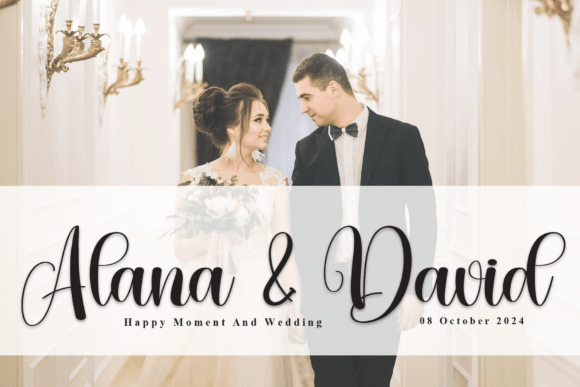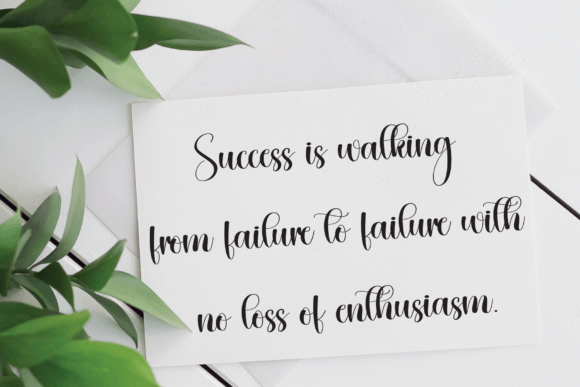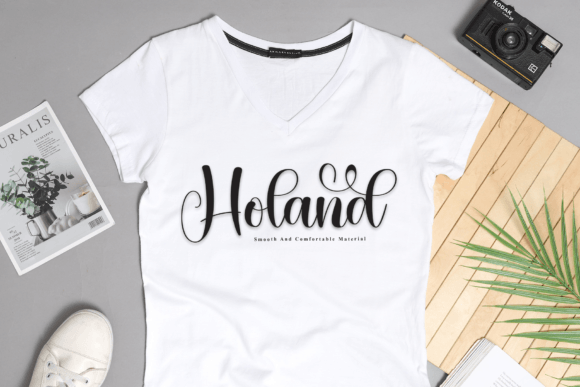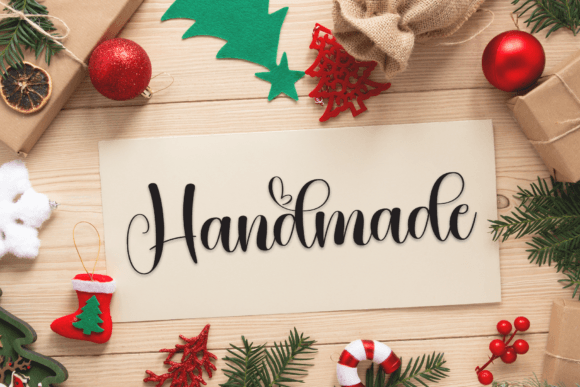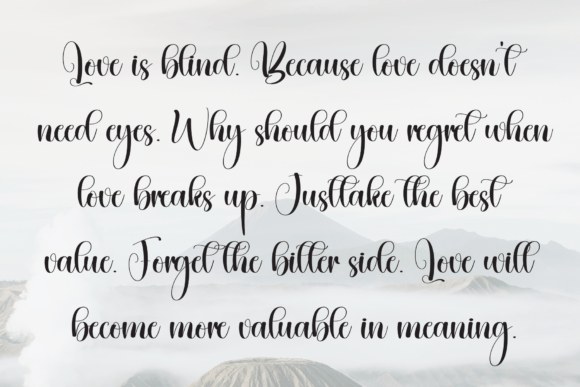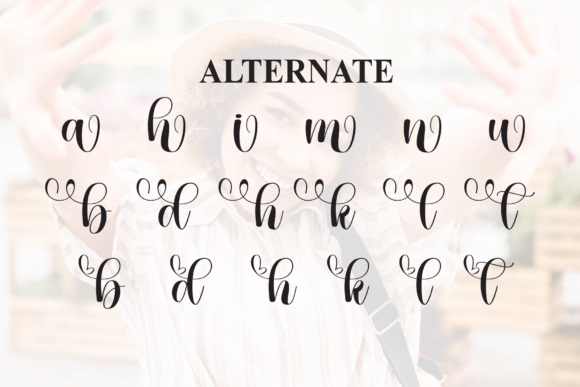
Hello Amelia Font: A Charming Handwritten Font for Your Designs
Hello Amelia is a lovely handwritten font with charming heart-shaped tails at the ends of the letters. It adds a sweet, personal touch to any design, making it perfect for designers and crafters looking to add a touch of warmth and personality to their work.
What Makes Hello Amelia Font So Special?
Hello Amelia font is a unique and beautiful handwritten font that stands out from the crowd. Its distinctive heart-shaped tails at the ends of the letters give it a playful and charming feel, making it perfect for designs that require a personal touch. Whether you’re creating a logo, a greeting card, or a social media post, Hello Amelia font is sure to add a touch of sweetness and whimsy to your design.
Features of Hello Amelia Font
- Handwritten style: Hello Amelia font is a handwritten font that mimics the look of handwriting, giving it a personal and organic feel.
- Heart-shaped tails: The font features charming heart-shaped tails at the ends of the letters, adding a touch of whimsy and playfulness to your designs.
- Easy to read: Despite its decorative nature, Hello Amelia font is easy to read, making it perfect for use in a variety of designs, from body text to headings.
- Versatile: Hello Amelia font is versatile and can be used in a wide range of designs, from digital designs like social media posts and blogs to print designs like greeting cards and posters.
Uses of Hello Amelia Font
Hello Amelia font is perfect for a wide range of designs, including:
- Wedding designs: The font’s sweet and romantic feel makes it perfect for wedding designs, such as wedding invitations, wedding cards, and wedding decorations.
- Greeting cards: Hello Amelia font is perfect for creating greeting cards for special occasions like birthdays, anniversaries, and holidays.
- Social media posts: The font’s playful and charming feel makes it perfect for social media posts, such as Instagram captions and Facebook posts.
- Logos and branding: Hello Amelia font can be used to create unique and memorable logos and branding materials that stand out from the crowd.
Tips for Using Hello Amelia Font
Here are some tips for using Hello Amelia font in your designs:
- Use it sparingly: Hello Amelia font is a decorative font, so it’s best to use it sparingly to add a touch of personality to your design.
- Pair it with a simple font: Pair Hello Amelia font with a simple font to create contrast and make your design more visually appealing.
- Experiment with colors: Hello Amelia font looks great in a variety of colors, so don’t be afraid to experiment and find the perfect color for your design.
Hello Amelia font is a lovely handwritten font with charming heart-shaped tails at the ends of the letters. Its sweet and personal feel makes it perfect for designers and crafters looking to add a touch of warmth and personality to their work. With its versatility, ease of use, and range of applications, Hello Amelia font is a great addition to any designer’s toolkit.